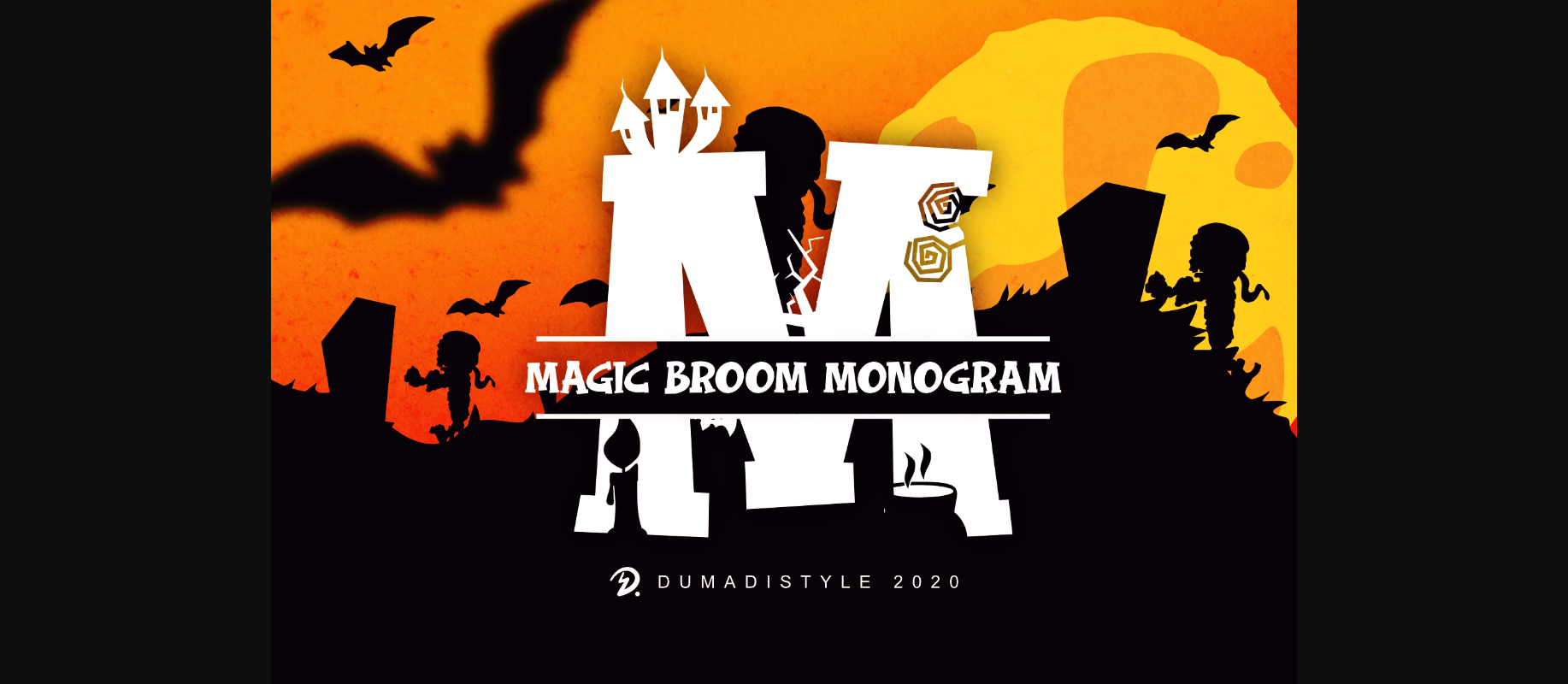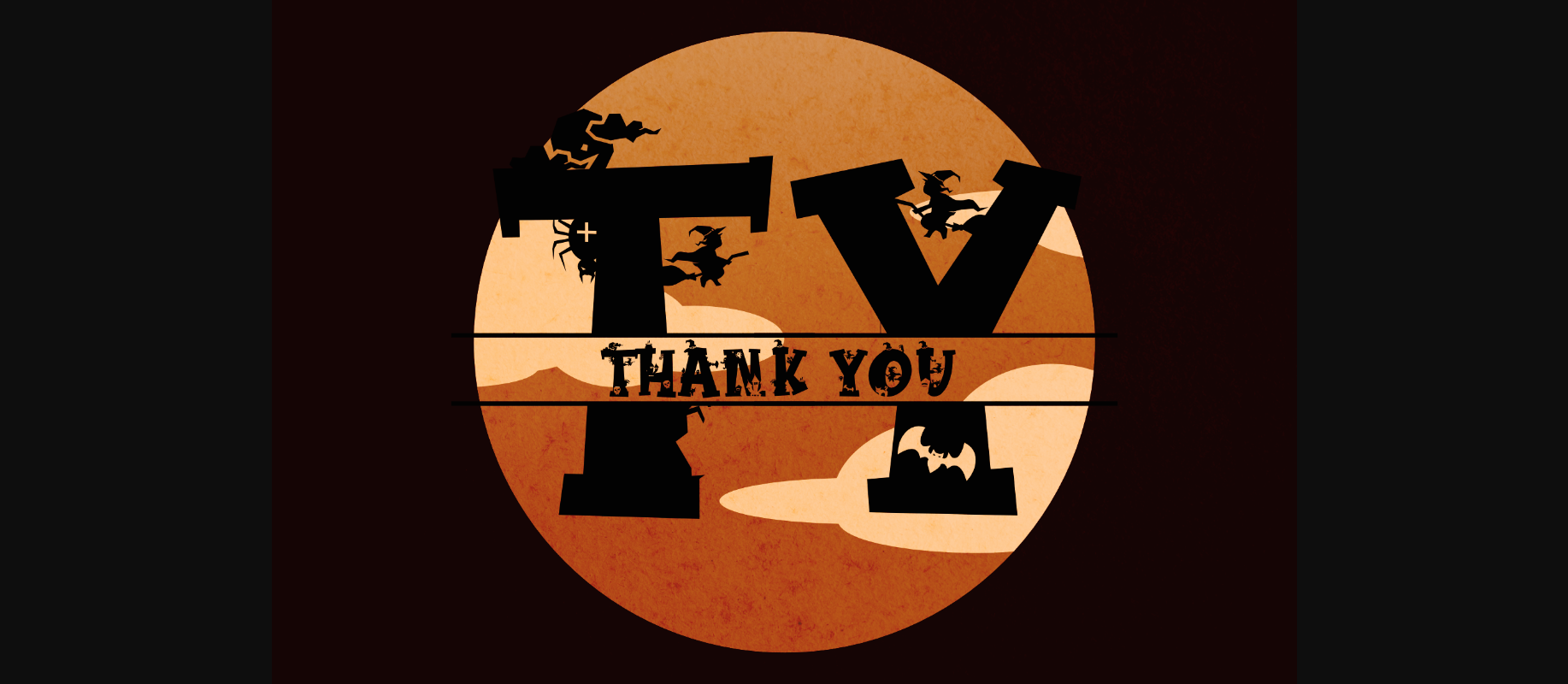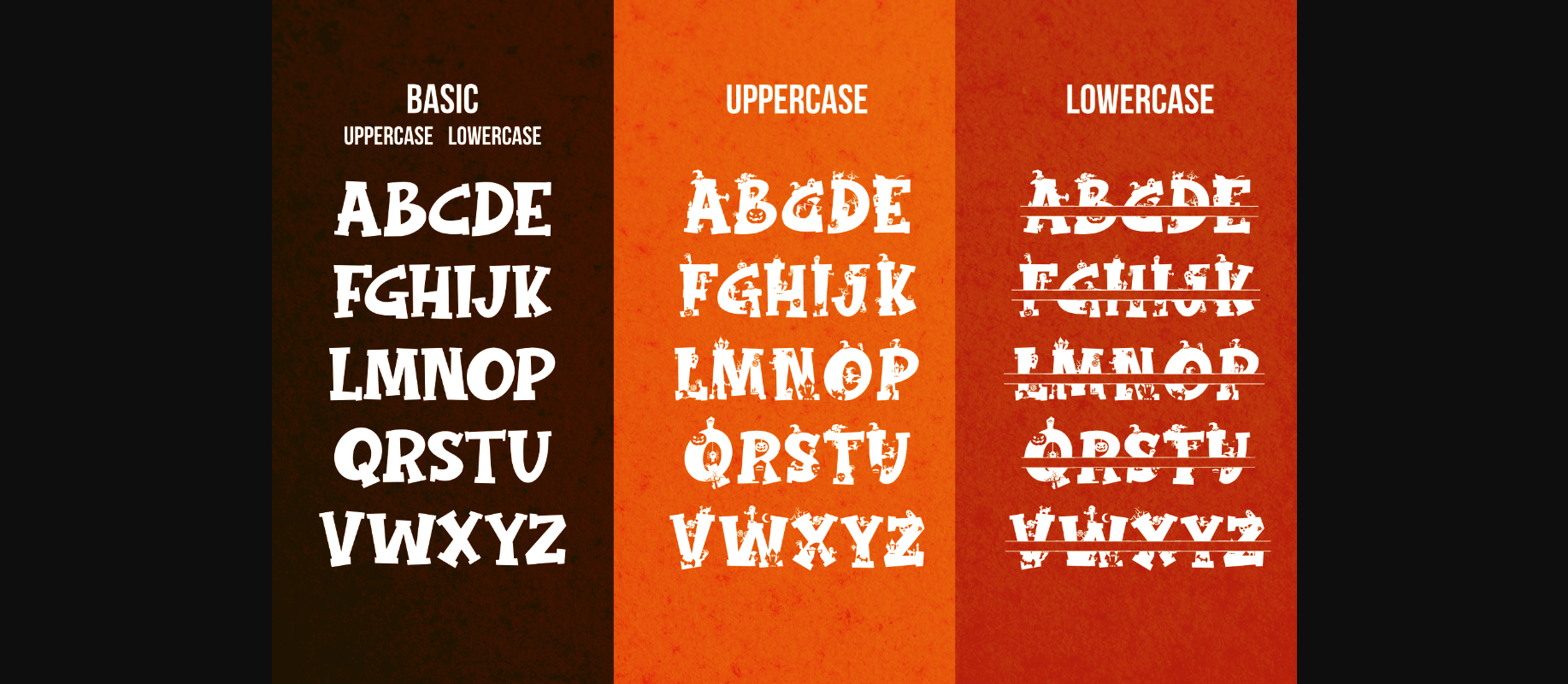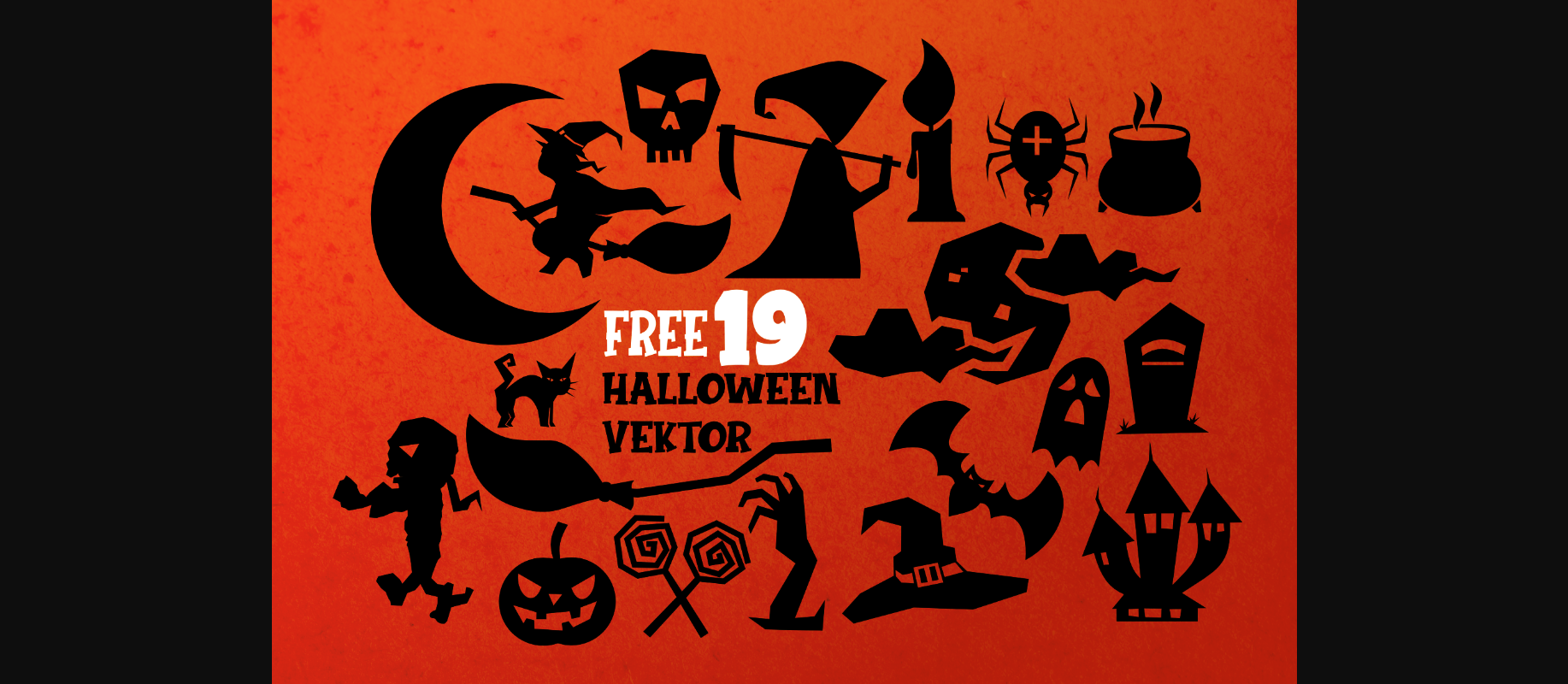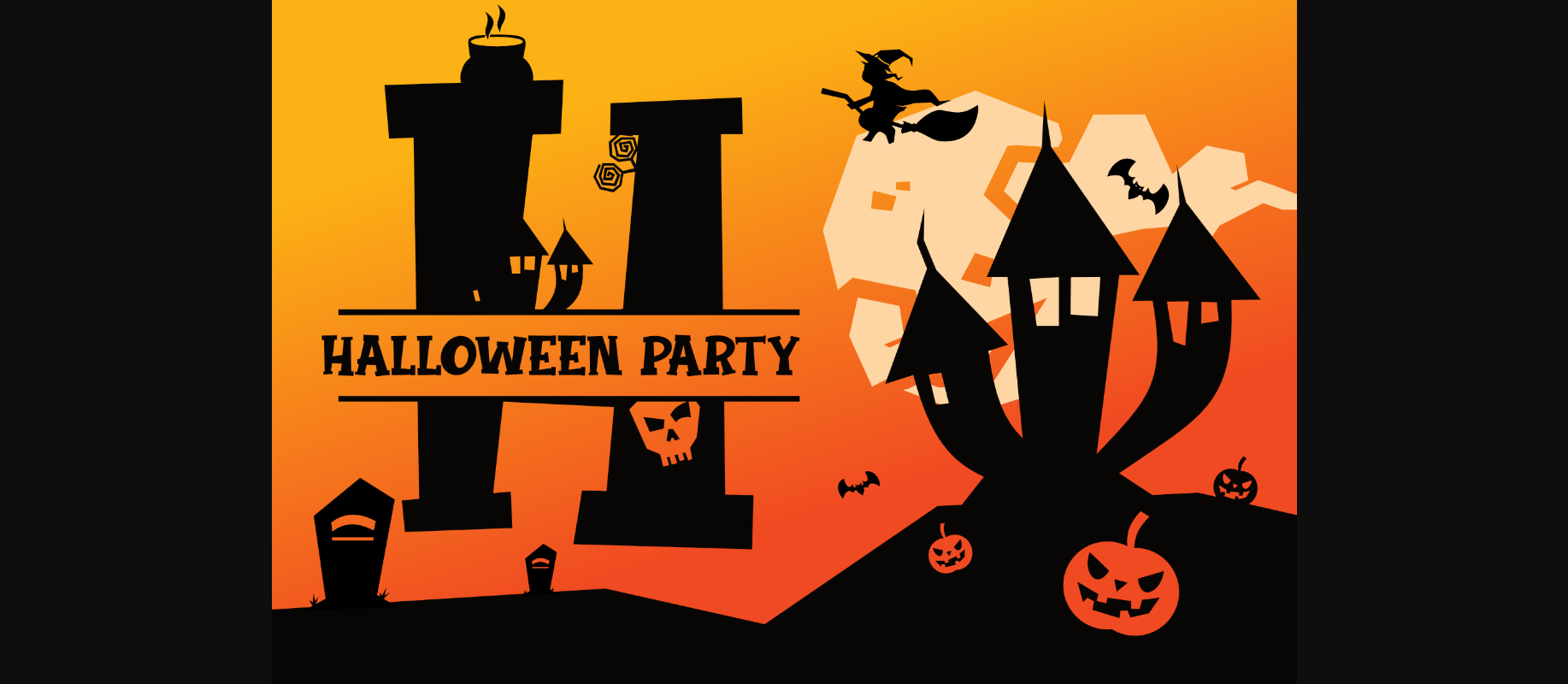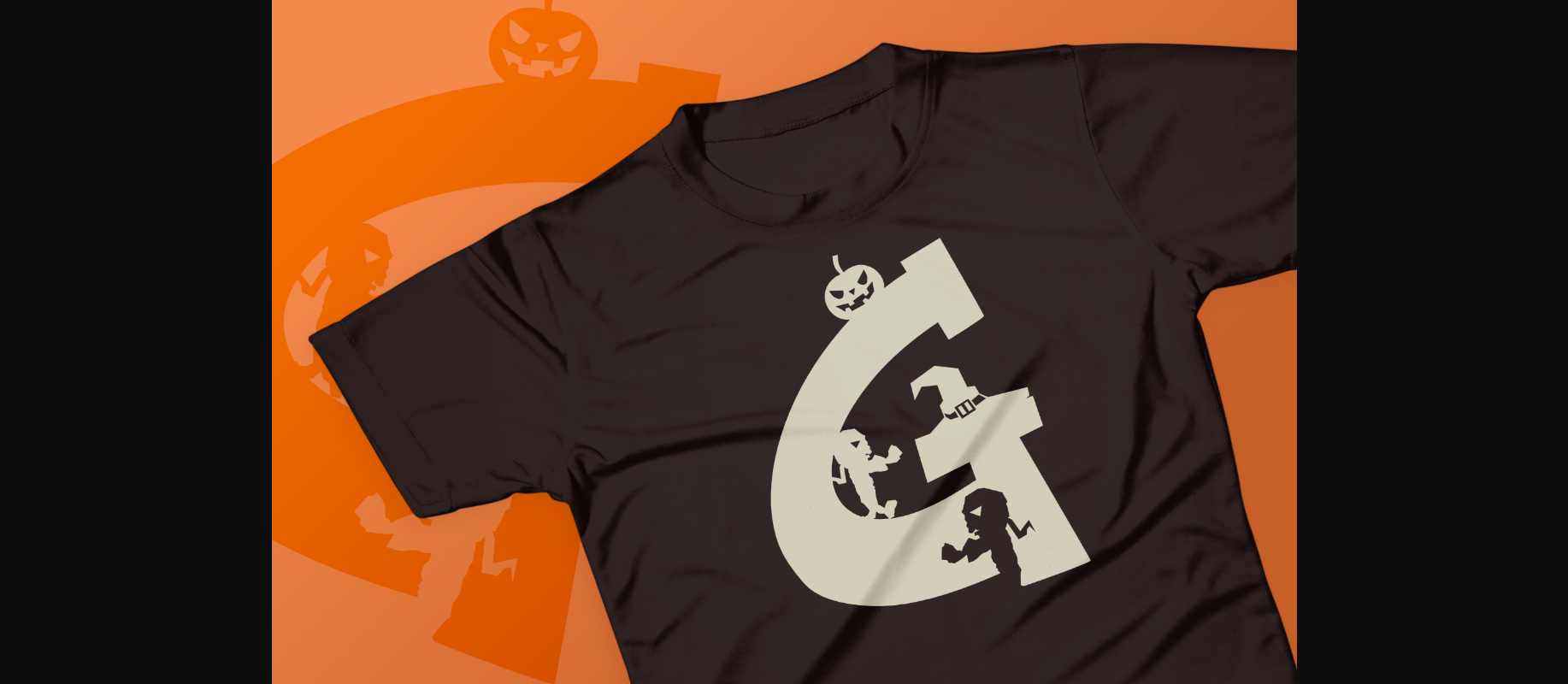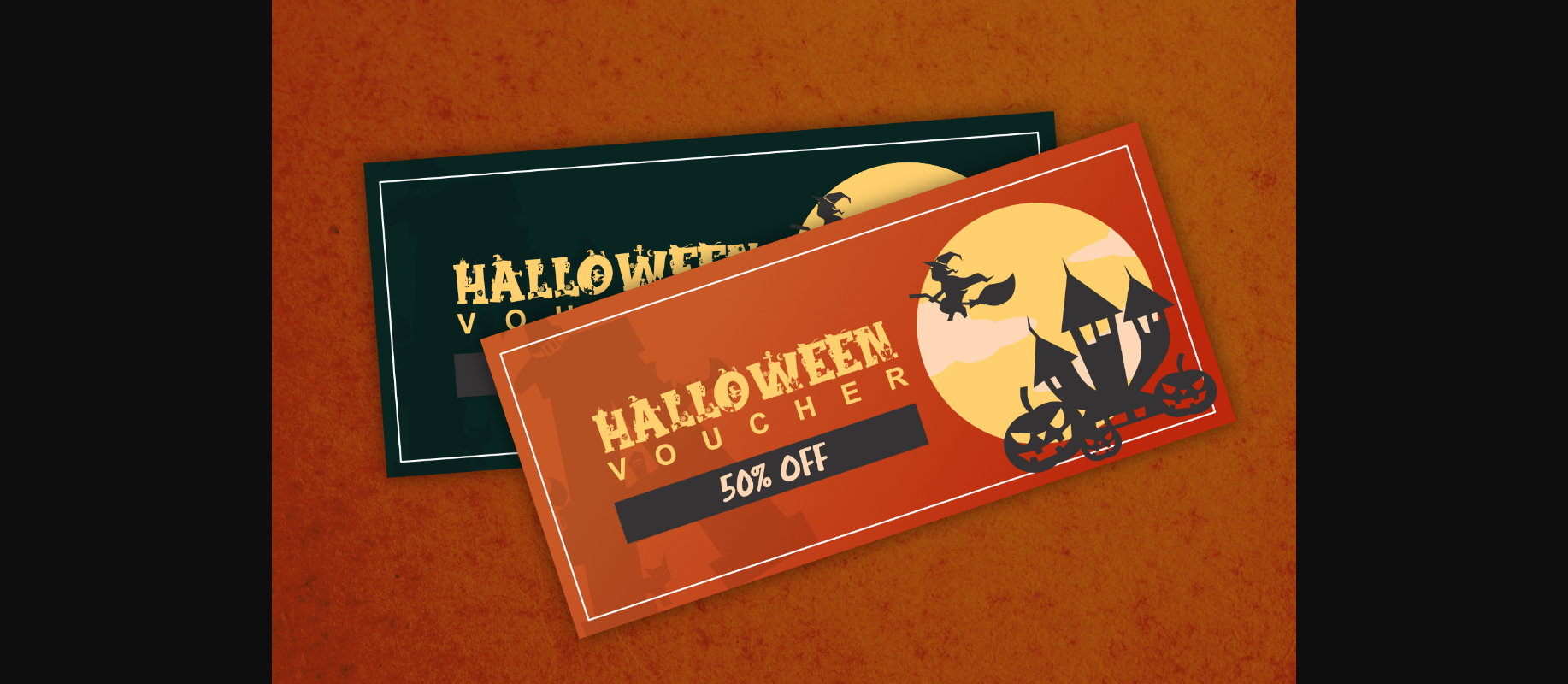
Magic Broom Monogram Font
About Magic Broom Monogram Font
Magic Broom Monogram is a unique and spooky decorative font. Get inspired by its gloomy and original feel and use it to create spectacular designs!